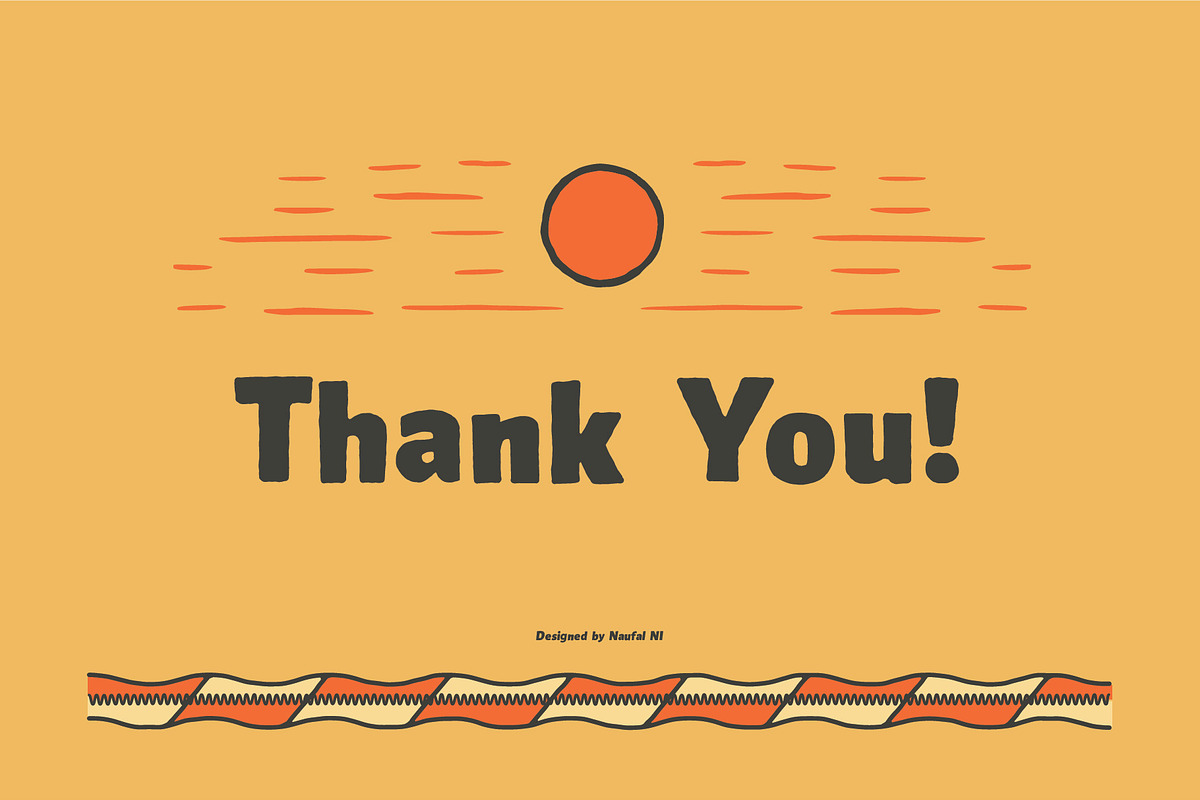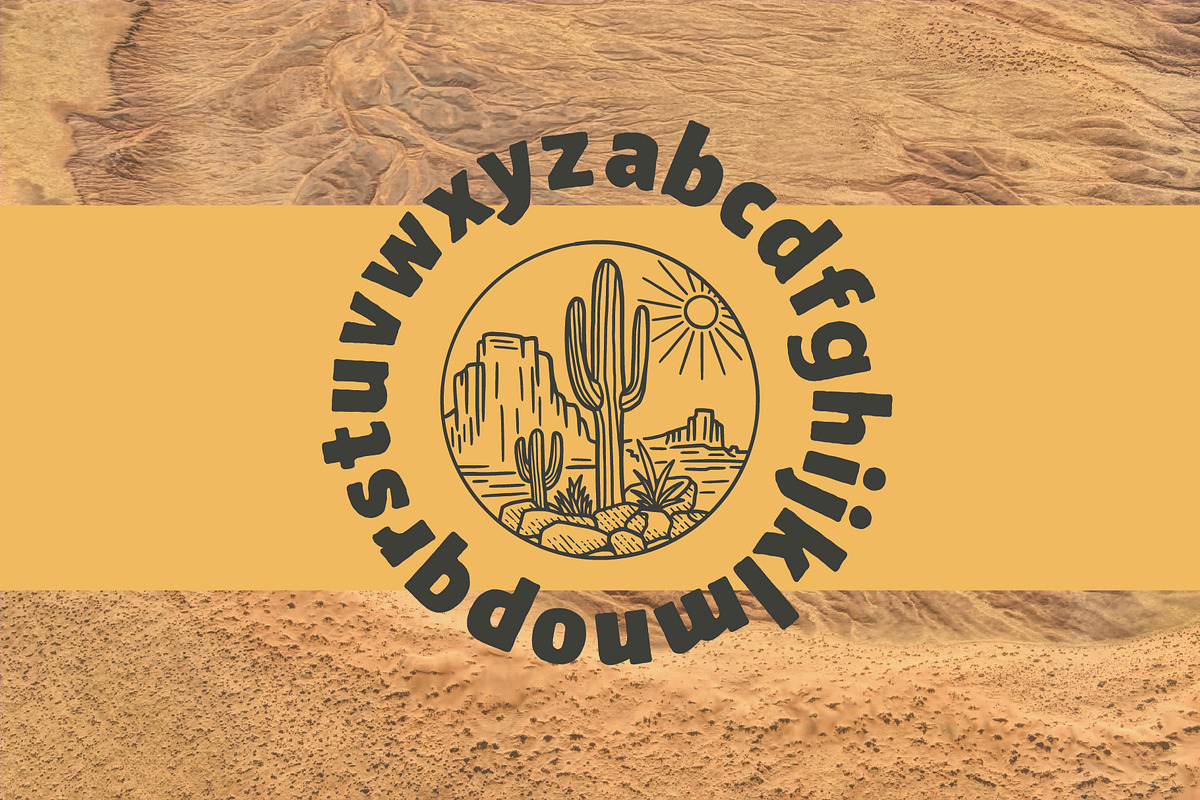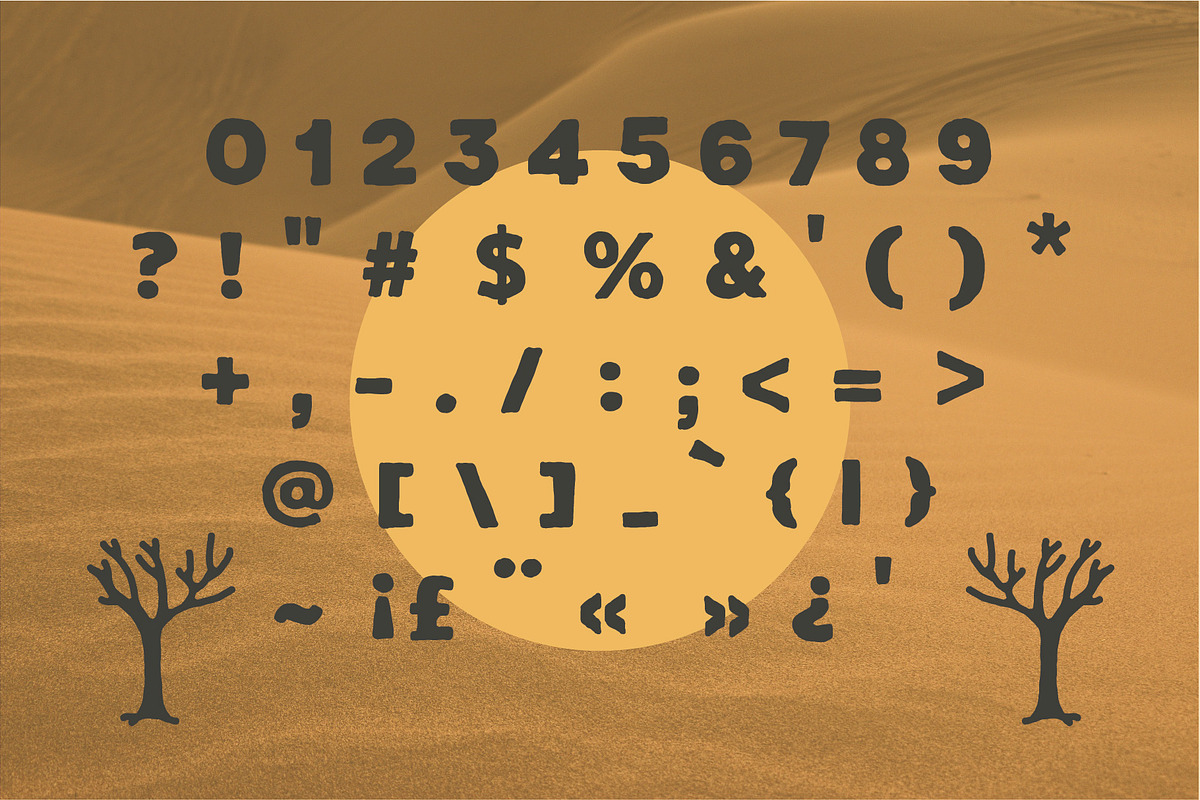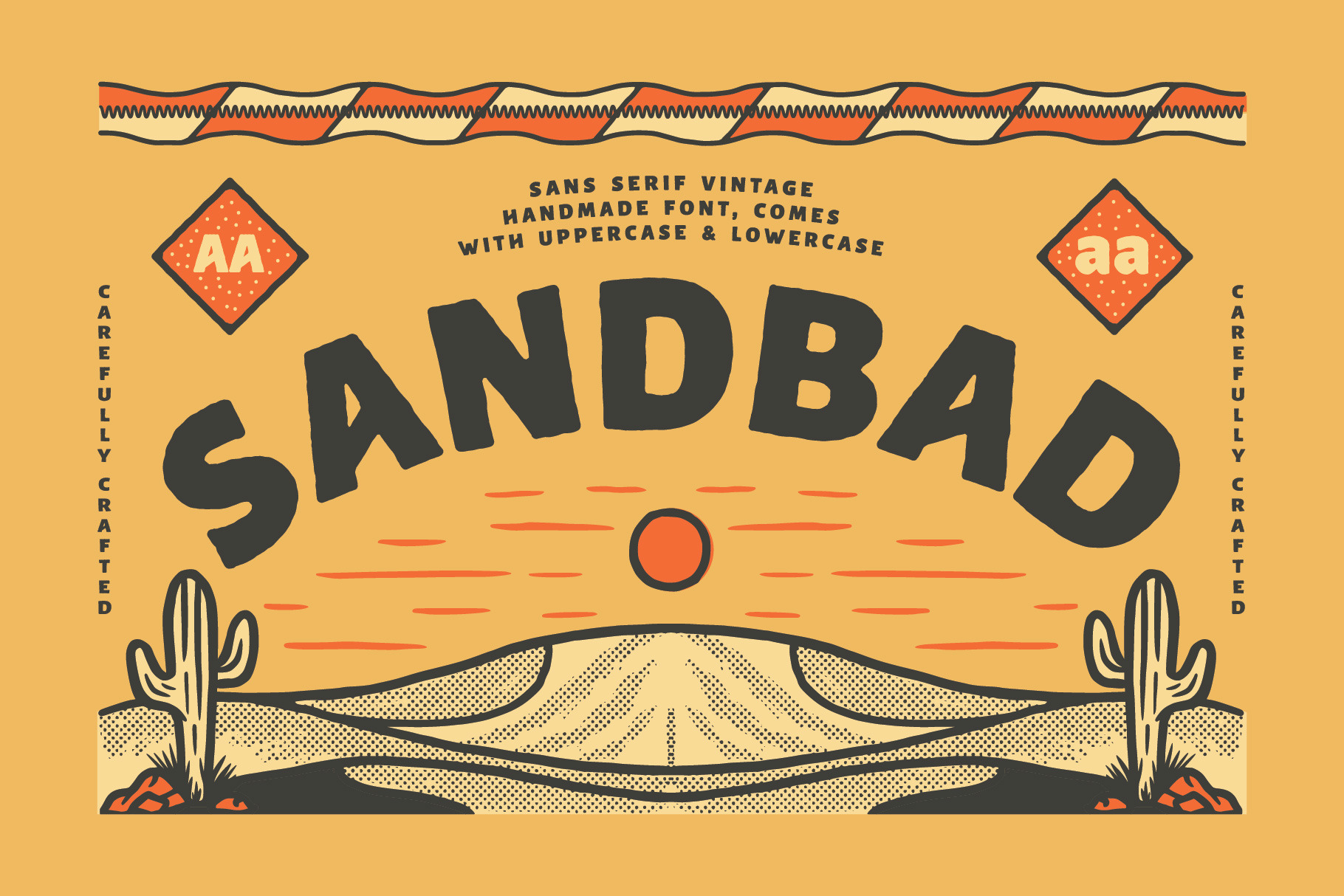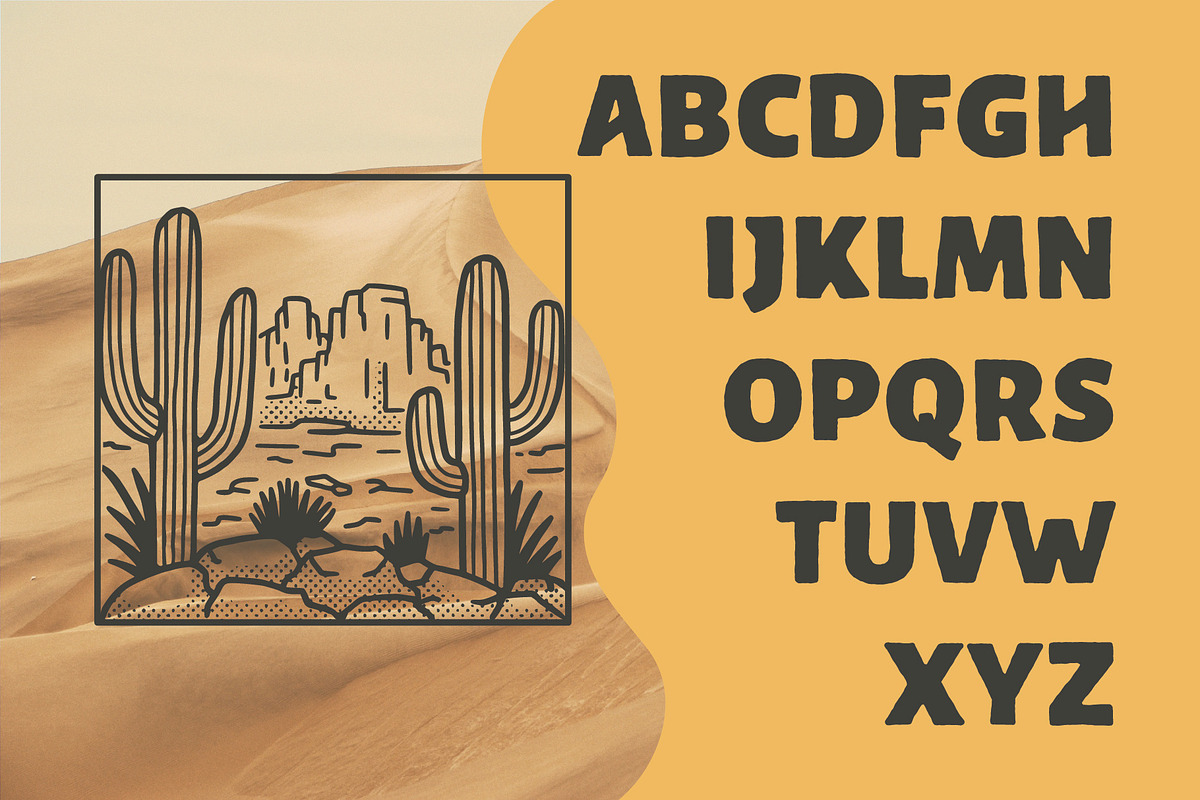
SANDBAD - Vintage Handmade Font
Introducing SANDBAD
SANDBAD is a bold sans serif font, and is inspired by vintage desert. This font is very suitable as a display font as well as a font for book cover, because it has a high readability. SANDBAD very basic looking handmade font, easy to match with various designs
SANDBAD perfect for making logo designs, badges, packaging, posters, t-shirt designs and more. Hope you like this font!